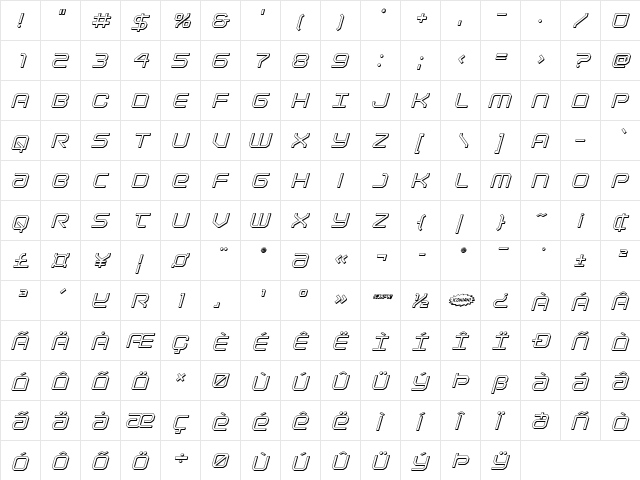
Light Brigade 3D Italic Italic Font Preview
Design Context for Light Brigade 3D Italic Typeface
Light Brigade 3D Italic takes a measured approach to typography — its balanced proportions and neutral character make it a reliable workhorse for both digital and print work. The slanted form adds forward momentum and visual energy. The delicate stroke weight brings airiness and refinement to layouts.
Pro Tip: Use Light Brigade 3D Italic for emphasis, pull quotes, and subheadings where its slanted energy can add rhythm to the layout.